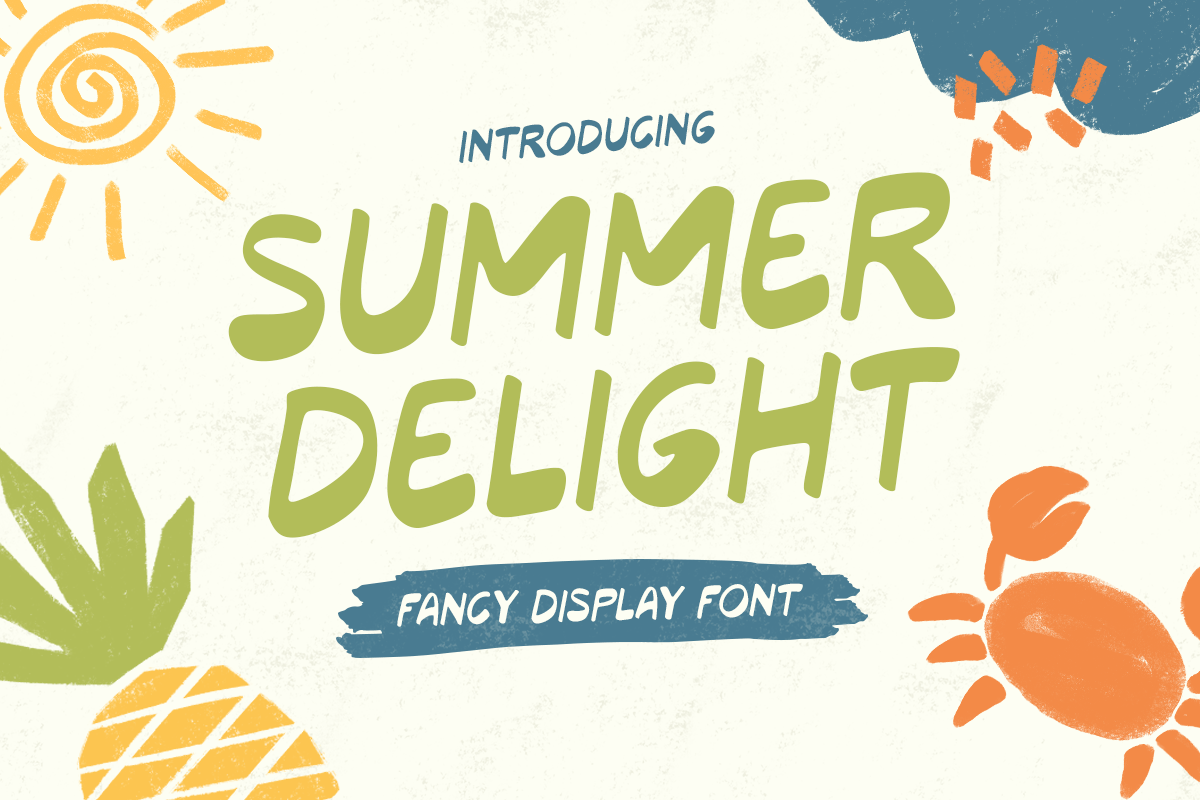
Summer Delight
-Fancy Fun Display Font
Summer Delight - Fancy Fun Display Font
SUMMER DELIGHT is a fancy fun display font crafted to bring bright personality and joyful energy into your typography. With playful shapes and a lively rhythm, this typeface delivers a cheerful look that feels sweet, vibrant, and made to stand out in bold headline settings.
Designed for fun-forward branding and eye-catching display use, SUMMER DELIGHT works beautifully across logos, product packaging, posters, menus, signage, website headers, and social media graphics. Its fancy details add extra charm, making it perfect for seasonal campaigns, creative promotions, and playful visual identities that need a sunny, friendly voice.
Whether you’re designing a summer product launch, a café promotion, a kids-friendly concept, or colorful marketing visuals, SUMMER DELIGHT helps your message look energetic, inviting, and memorable across digital and print layouts.
Inspiration Behind SUMMER DELIGHT
SUMMER DELIGHT is inspired by sunny holiday vibes, colorful pop design, and playful display typography that feels lighthearted and festive. Built for cheerful branding and vibrant headline design, it supports seasonal promotions, fun packaging concepts, and joyful marketing visuals where typography needs to feel bright, friendly, and full of character.
SUMMER DELIGHT Font Features
• Fancy fun display letterforms with cheerful personality
• Optimized for bold headlines and playful branding design
• Clear readability for posters, packaging, and promo graphics
• OpenType features for polished, flexible typesetting
• Fun logos and cheerful brand identity systems
• Posters, menus, banners, and seasonal promotions
• Packaging, labels, and product presentation design
• Website headers and social media campaign graphics
• Kids-friendly concepts and colorful creative layouts
Make every design feel sunnier with SUMMER DELIGHT—crafted for fancy fun headlines and playful brand charm. 🌞✨